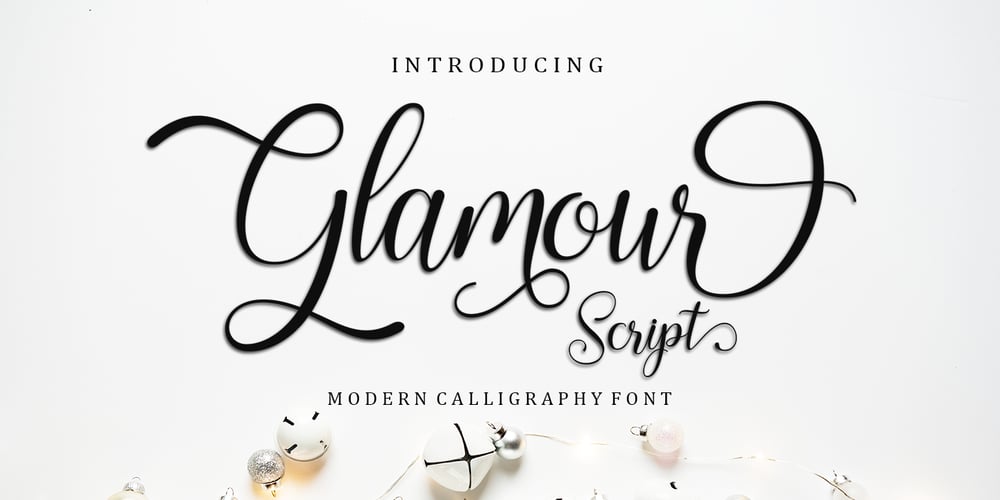
Glamour Script
Glamour Script font
Glamour Script Font Family was designed by Mu Fazzal and published by Bosstypestudio. Glamour Script contains 1 styles and family package options. Glamour Script in a beautiful handwritten style. Equipped with 380 glyphs. Glamour Script is perfect for branding projects, home appliance design, product packaging, use in business cards, invitation cards, etc. Simply as a stylish text overlay onto a background image or anything that requires a touch of elegance.To enable OpenType Stylistic alternates, you need a program that supports OpenType features such as Adobe Illustrator CS, Adobe Indesign & CorelDraw X6-X7, Microsoft Word 2010 or a later version.